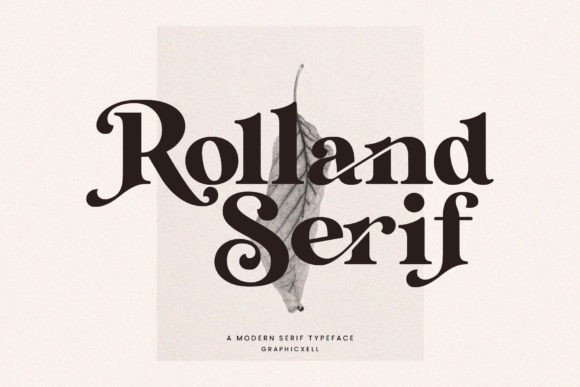
Dive into the world of typography and let your words dance with the exquisite Rolland font, a serif masterpiece crafted by Graphicxell, designed to elevate your designs to new heights.
Rolland font is a symphony of style and elegance, a visual treat that exudes sophistication and charm. Its sleek curves and refined lines are like a gentle caress on the eyes, inviting readers to immerse themselves in your content.
With Rolland, your words become art, your messages transformed into captivating expressions of creativity. Its balanced proportions and timeless appeal make it the perfect choice for titles, headlines, and any text that demands attention.
Using Rolland is like stepping into a world of endless possibilities, where your imagination can run wild. Whether you're creating a sleek business proposal, a captivating magazine spread, or an awe-inspiring website, Rolland's versatility will astound you.
This font is not just a tool — it's a partner in your creative journey, a catalyst that ignites your inspiration. With Rolland, you'll discover new depths of expression and captivate your audience with every word.
Join the ranks of those who have embraced the beauty of Rolland, and experience the transformative power of typography. It's not just a font — it's an experience.
Unlock the limitless potential of Rolland today, and let your words shine brighter than ever before.